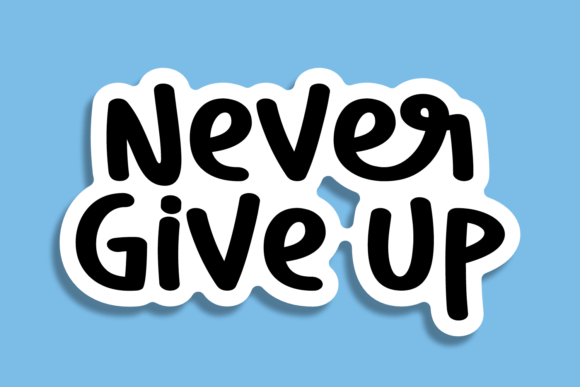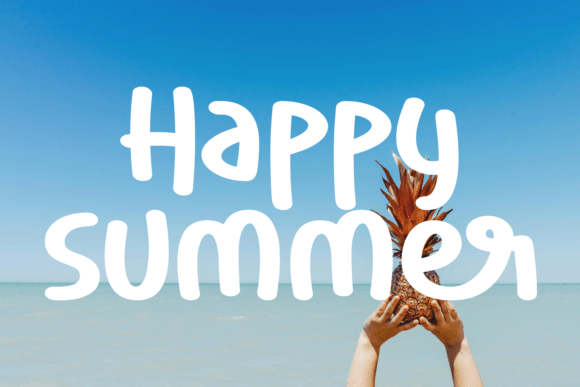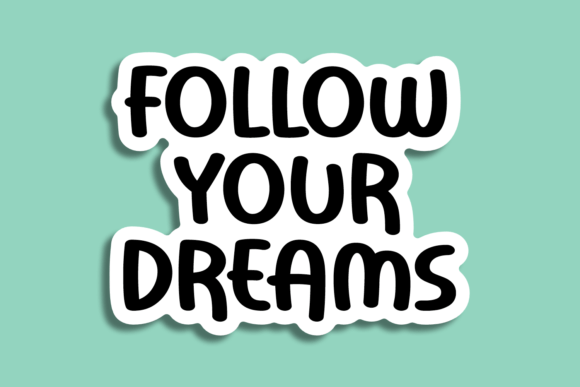
Gather of God: A Whimsical Handwritten Font for Designers and Crafters
In the world of typography, fonts play a crucial role in conveying the tone and personality of a brand, product, or artwork. For designers and crafters looking for a playful and enchanting font to add a touch of magic to their projects, Gather of God is an excellent choice. This delightful handwritten font is perfect for a wide range of applications, from branding and logo design to social media graphics and children’s book illustrations.
The Charm of Gather of God
Gather of God is a playful handwritten font that exudes a sense of whimsy and wonder. Its unique and charming letterforms are carefully crafted to add a touch of personality to any project. The font’s playful nature makes it an ideal choice for designers and crafters who want to create engaging and eye-catching visuals that appeal to a wide range of audiences.
One of the standout features of Gather of God is its versatility. This font can be used for a wide range of applications, including:
- Branding and Logo Design: Create a memorable brand identity with Gather of God’s unique and playful letterforms.
- Social Media Graphics: Add a touch of personality to your social media posts and stories with this delightful font.
- Children’s Book Illustrations: Bring your children’s book illustrations to life with Gather of God’s whimsical and enchanting letterforms.
- Stationery and Invitations: Add a touch of magic to your stationery and invitations with this beautiful handwritten font.
Why Choose Gather of God?
So, why should designers and crafters choose Gather of God for their projects? Here are a few compelling reasons:
- Unique and Playful: Gather of God is a one-of-a-kind font that adds a touch of personality to any project.
- Highly Versatile: This font can be used for a wide range of applications, from branding and logo design to social media graphics and children’s book illustrations.
- Easily Readable: Despite its playful nature, Gather of God is highly readable, making it perfect for body text and captions.
Tips for Using Gather of God
To get the most out of Gather of God, here are a few tips to keep in mind:
- Pair it with Other Fonts: Experiment with pairing Gather of God with other fonts to create a unique and visually appealing typography combination.
- Use it for Headings and Titles: Gather of God is perfect for headings and titles, where its playful nature can really shine.
- Add a Personal Touch: Use Gather of God to add a personal touch to your projects, whether it’s a handwritten note or a custom illustration.
In conclusion, Gather of God is a playful handwritten font that is perfect for designers and crafters looking to add a touch of magic and wonder to their projects. With its unique and charming letterforms, high versatility, and ease of use, this font is an excellent choice for a wide range of applications. Whether you’re creating branding and logo designs, social media graphics, or children’s book illustrations, Gather of God is sure to delight.